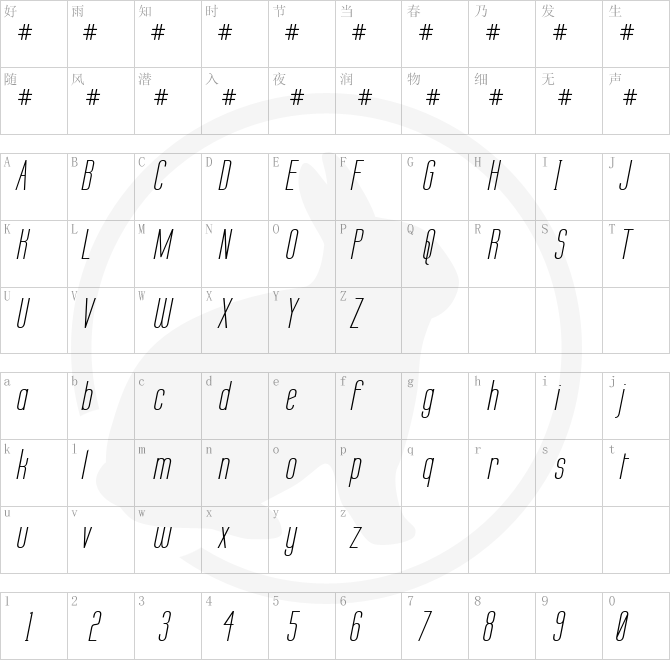
- Font Name:Labtop
- Subfamily:Labtop Italic: 2001
- Full Name:Labtop Italic
- PostScript:Labtop-Italic
Labtop-Italic.ttf is a very beautiful artistic font, Labtop-Italic.ttf is widely used in the design and printing of various books and pictures,Labtop-Italic.ttf has a strong visual impact,Labtop-Italic.ttf is a commonly used font in newspapers, magazines and books, and is used in posters, e-commerce Poster design, store design, logo design, font design and other fields.Labtop-Italic.